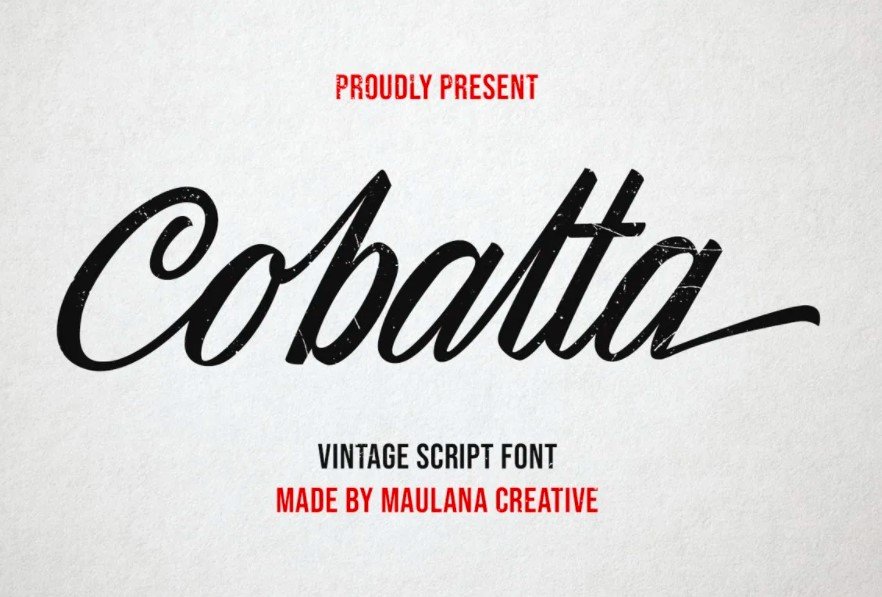
If you are new in the field of graphic designing then we would like to tell you that you will have to face some great typeface that will give your designs the perfect look. Today we are sharing one of that designs that is a brilliantly handcrafted typeface which is Cobalta Font that has rich features and is available with great styles and different ligatures.
The typeface looks good in all kinds of works that you are going to develop to experience the field of graphics and you can also use it as pairing with streetlight script font. This will helps you a lot in generating beautiful and unique content. This is very much useful for most graphic designers.
You can see the handcrafted layouts of the designs in the below image to get an idea about all of its unique ligatures and stylistic sets.
This is beautiful handwritten texture font that contains opentype features and having a perfect alternative to make the post-worthy and eye-catchy. It can be useful to use with megrim font.
Also, there are many usages of this handwritten typeface you can utilize all of its offered features in making posters, landing designs, covers, logos, banners, resume designs, youtube posters, LinkedIn banners, and other graphics pieces of stuff.
| Style | Handwritten |
| Designer | Molana Creative |